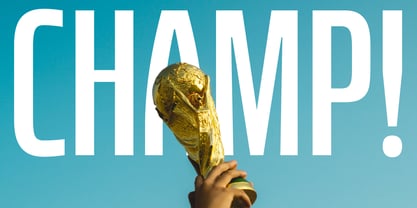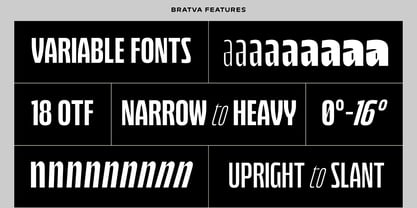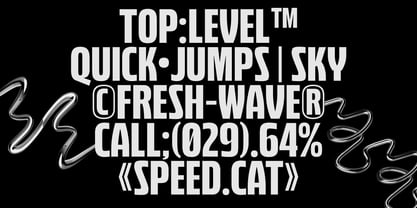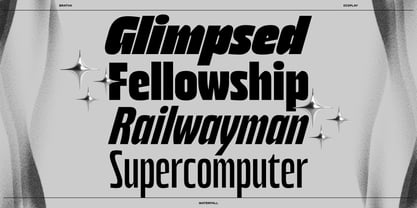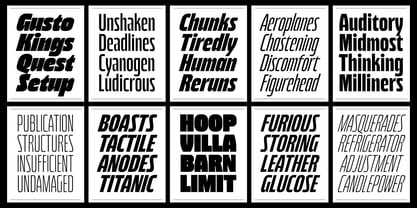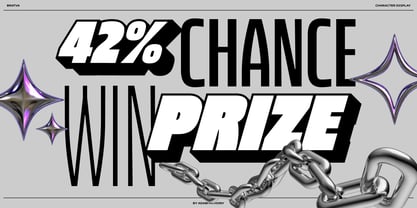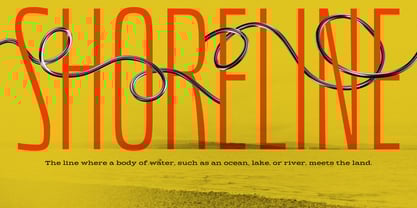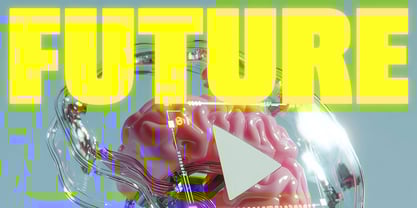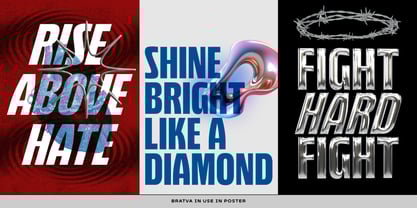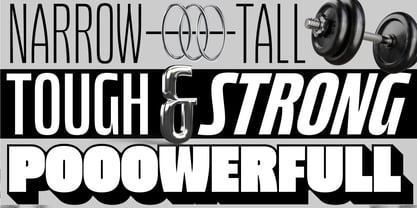
Bratva
Die Schriftfamilie Bratva wurde von Adam Fathoni Haris entworfen und von Adam Fathony veröffentlicht. Bratva enthält 19 Stile und Familienpaketoptionen.
Unleash powerful visual energy with Bratva—a commanding variable font family designed to stand out. Ranging from narrow to ultra-heavy, each style offers strength and versatility, making it ideal for headlines, branding, posters, and impactful displays. With a variety of robust options, including slanted and upright cuts, along with extensive multilingual support, Bratva ensures your message captures attention across all mediums.